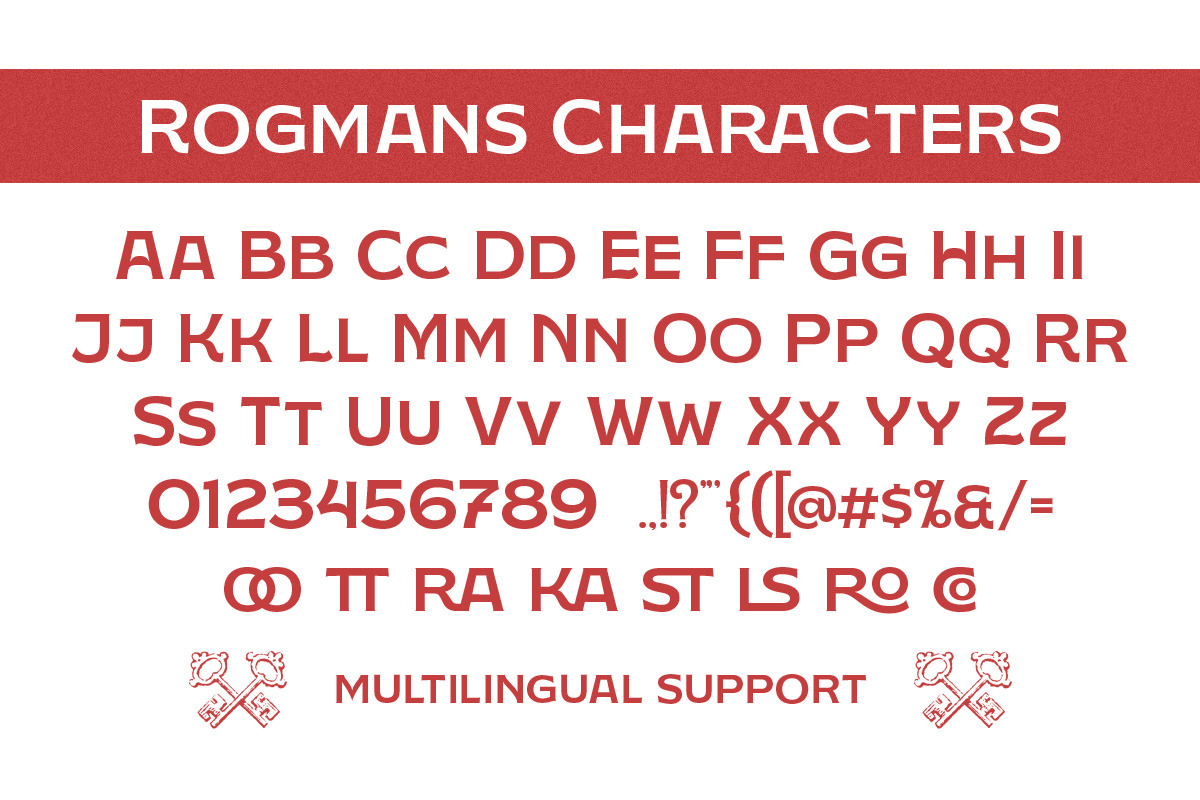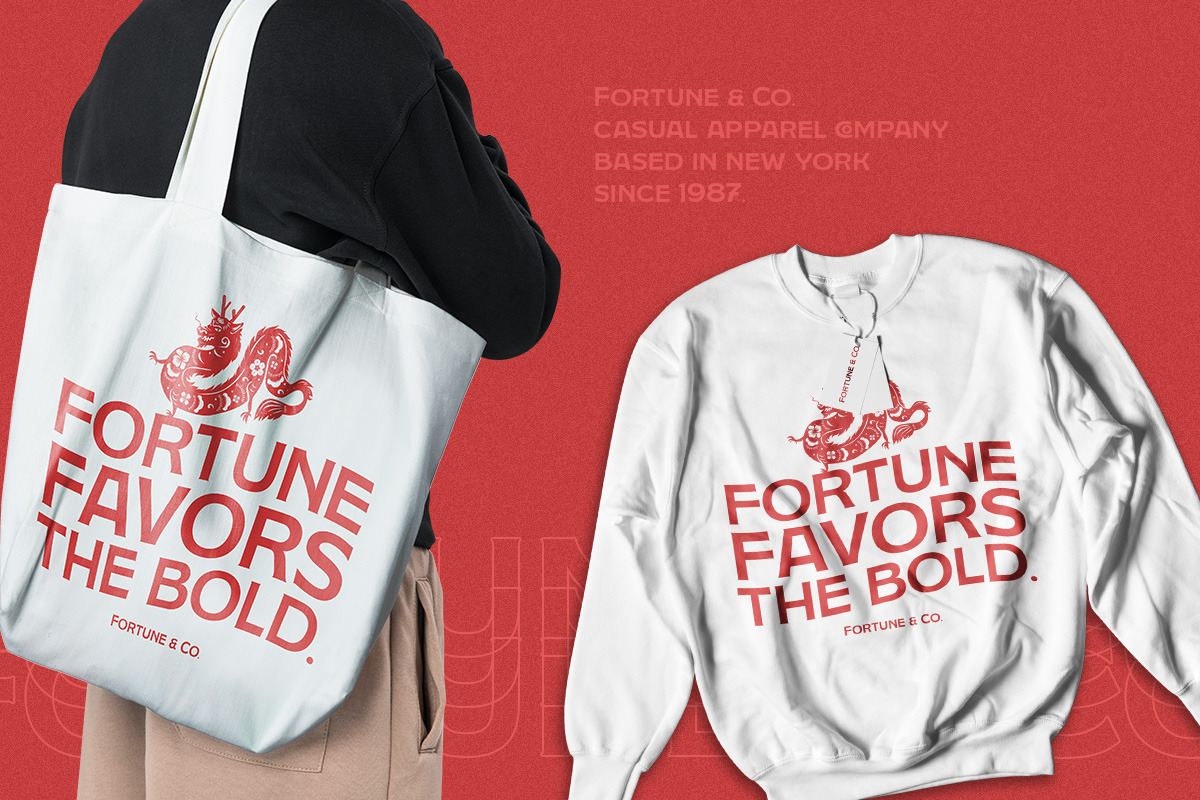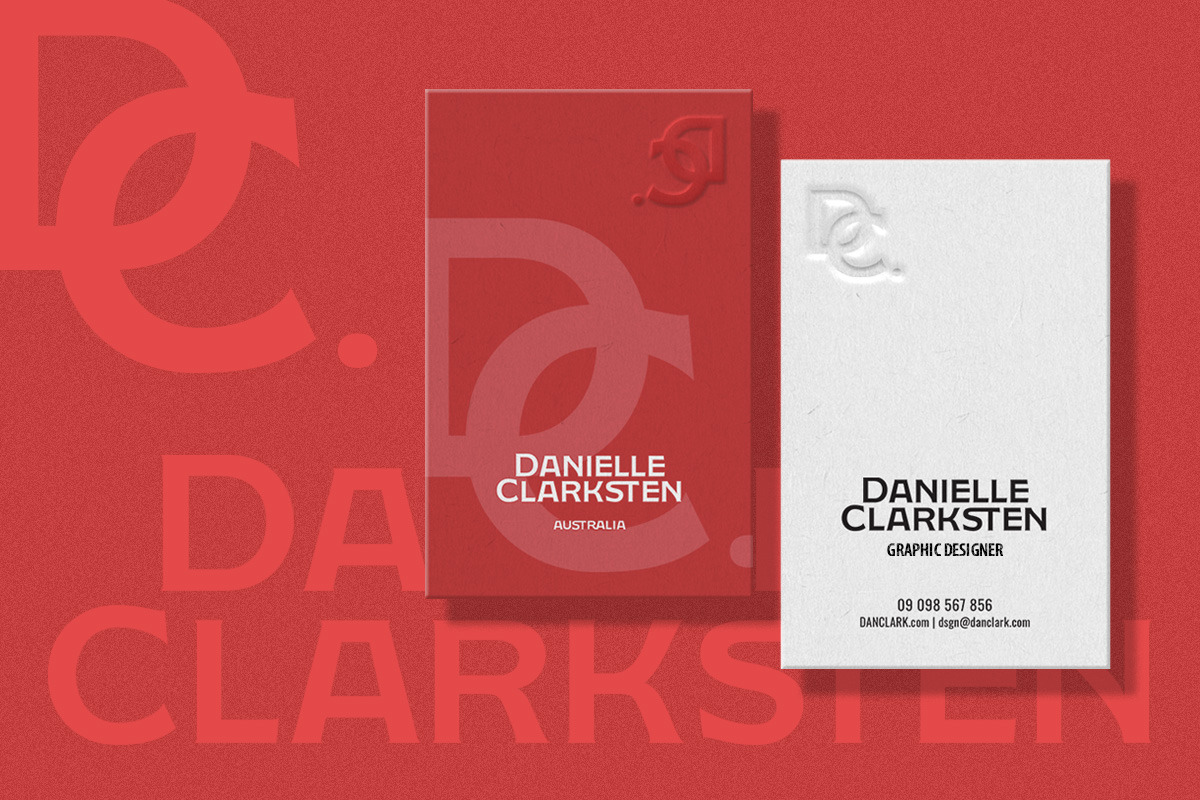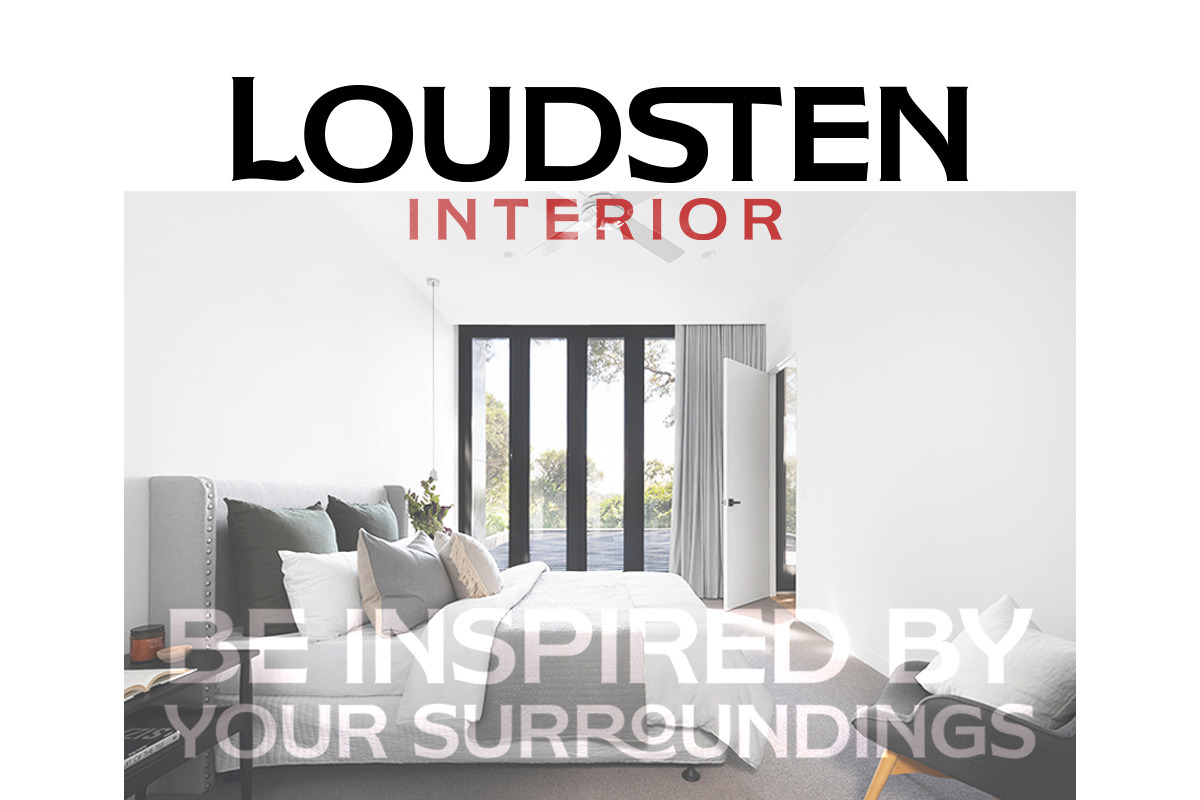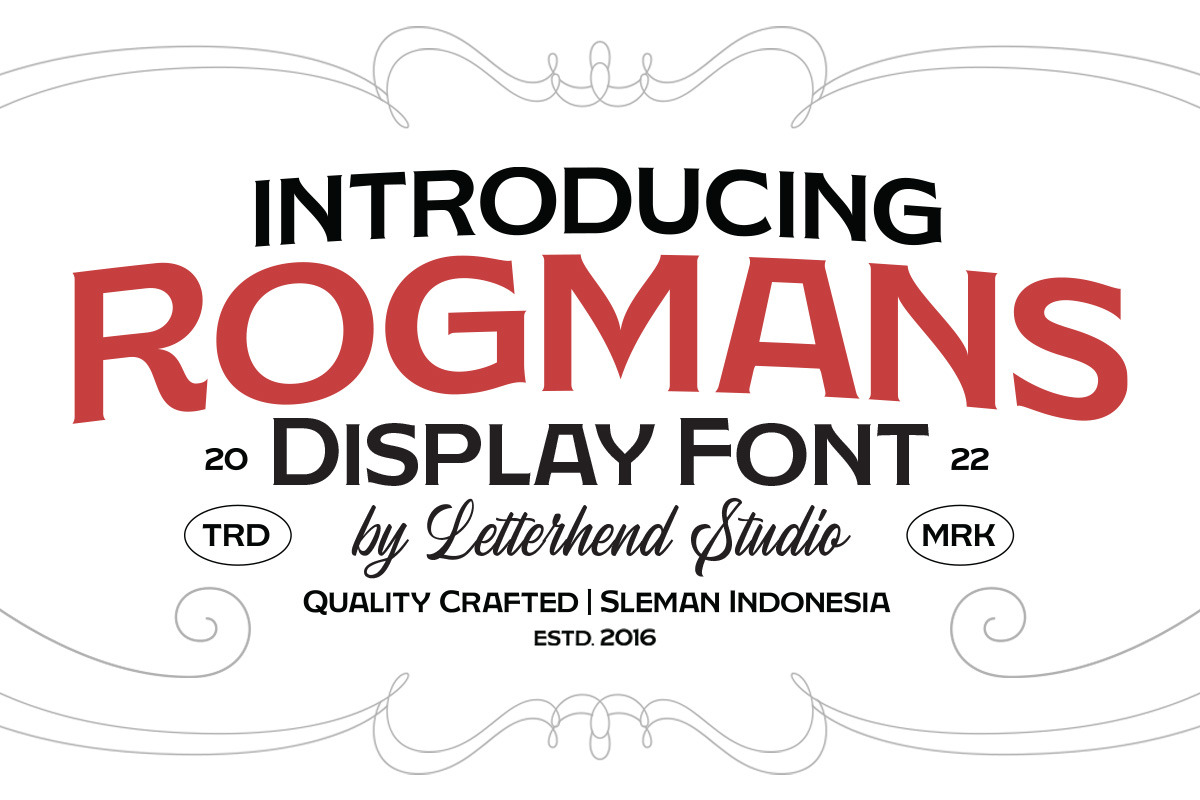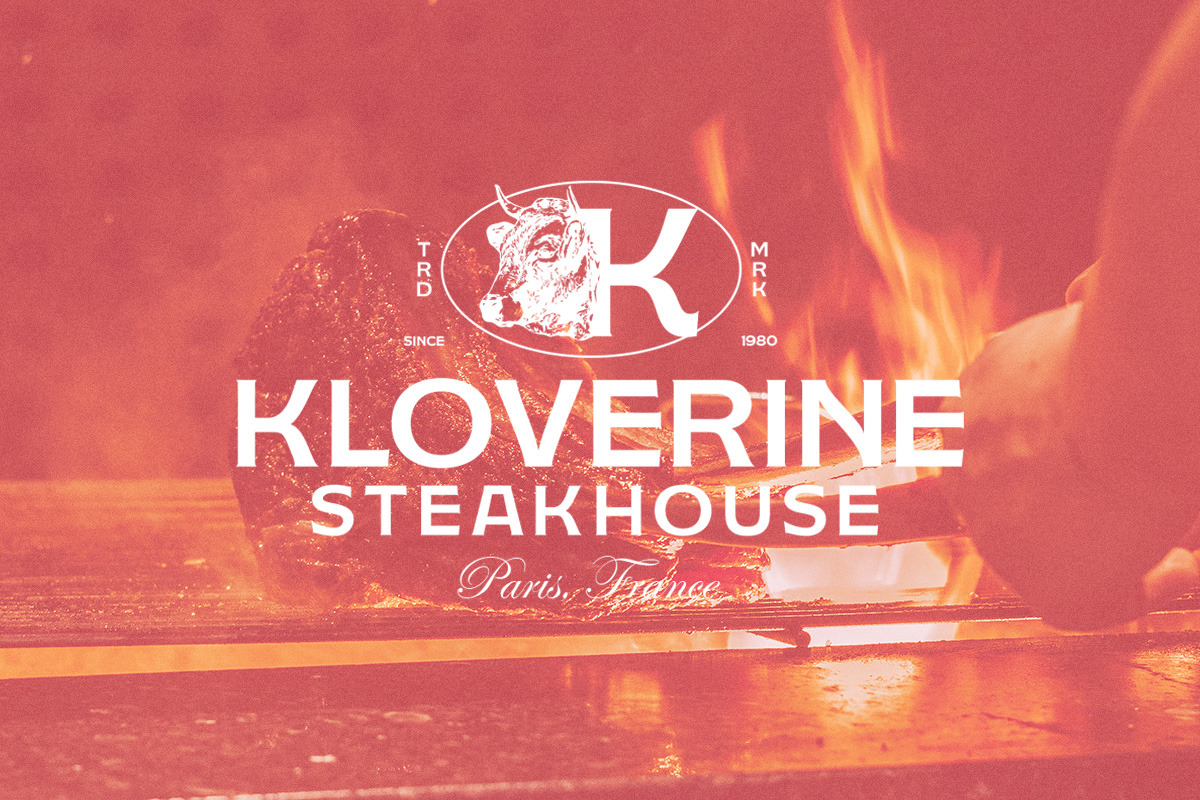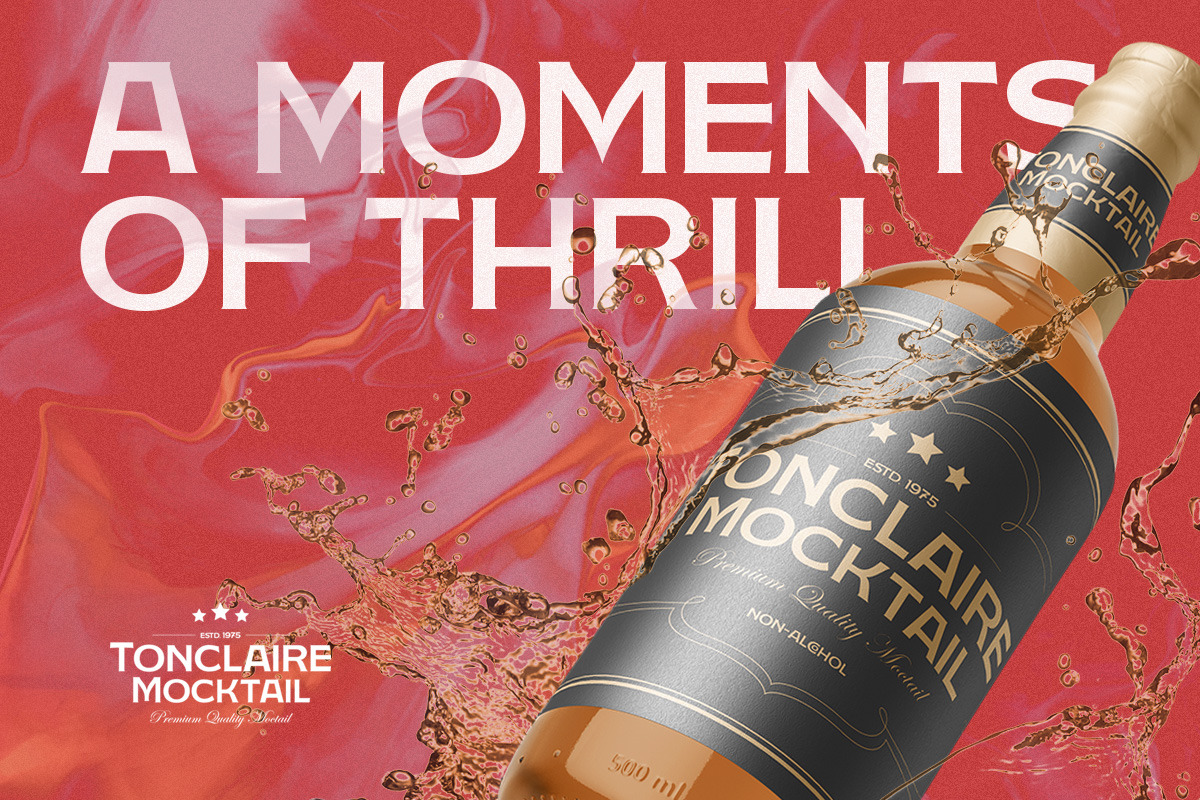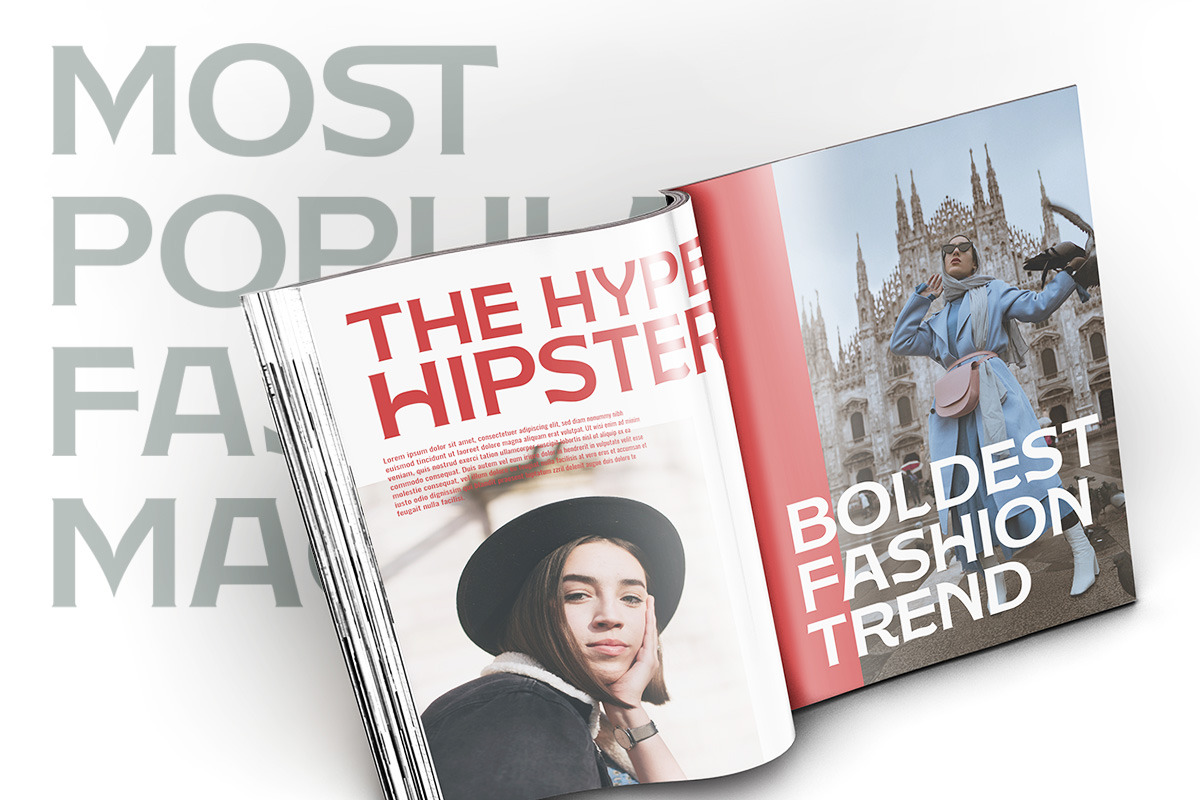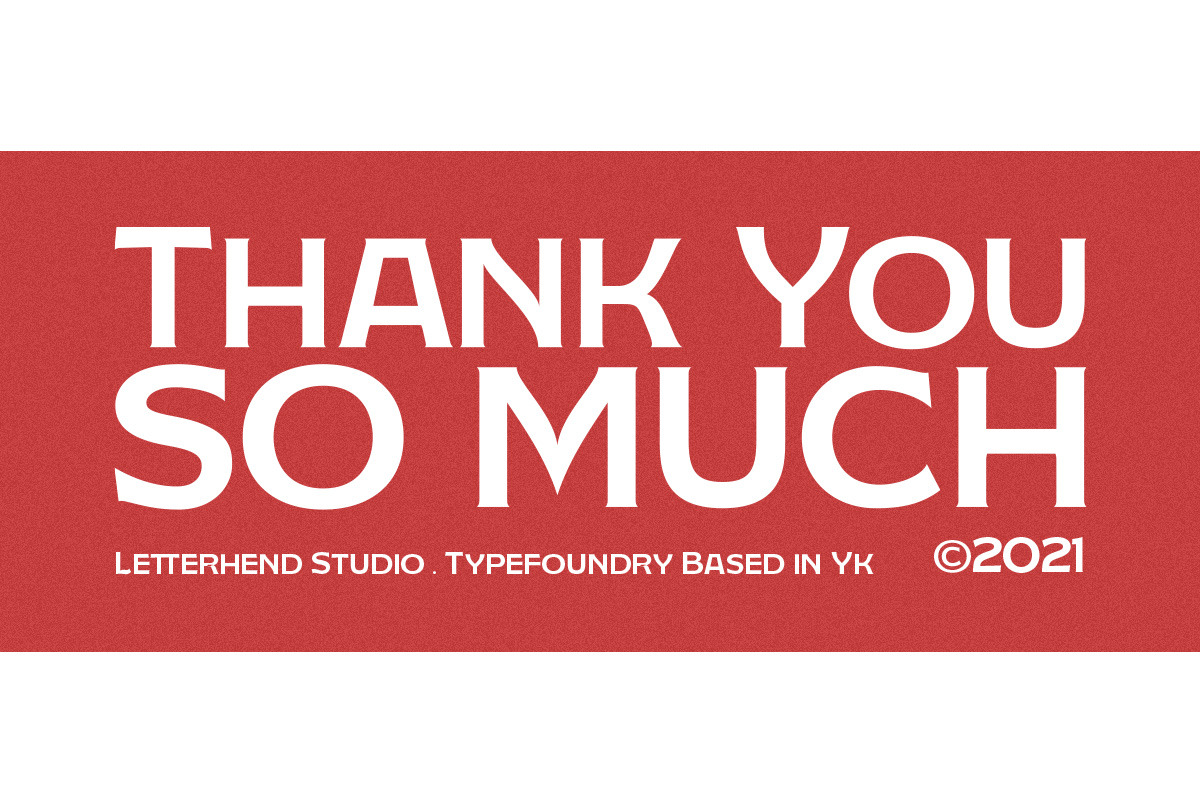
Rogman - Display Font
Rogman is a display font which looks great for modern theme but still has classy feel. Very suitable for for headline, logotype, apparel, invitation, branding, packaging, advertising etc with old school / vintage as well as modern theme. It comes in uppercase, lowercase, punctuations, symbols & numerals, stylistic set alternate, ligatures, etc also support multilingual and already PUA encoded.
- uppercase and lowercase
- alternates and ligatures